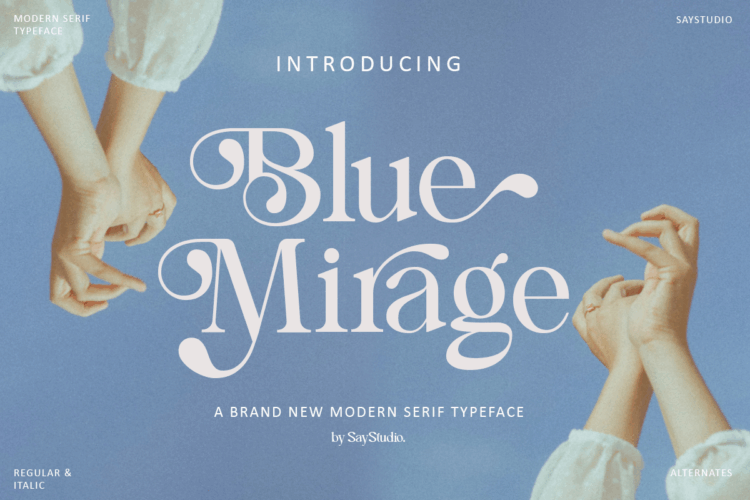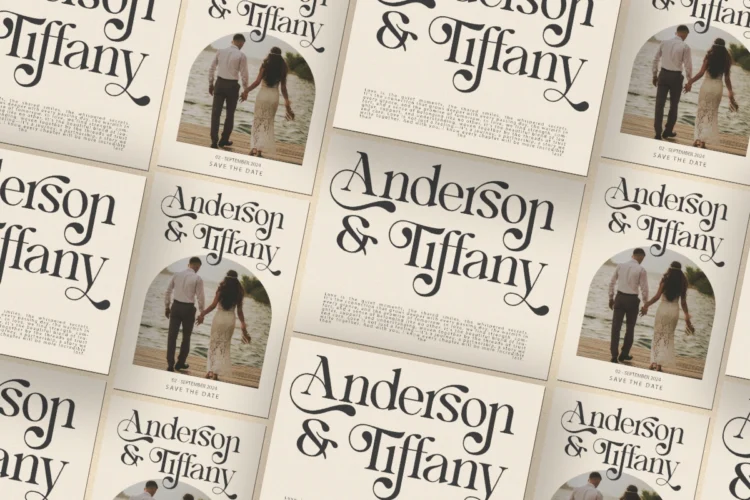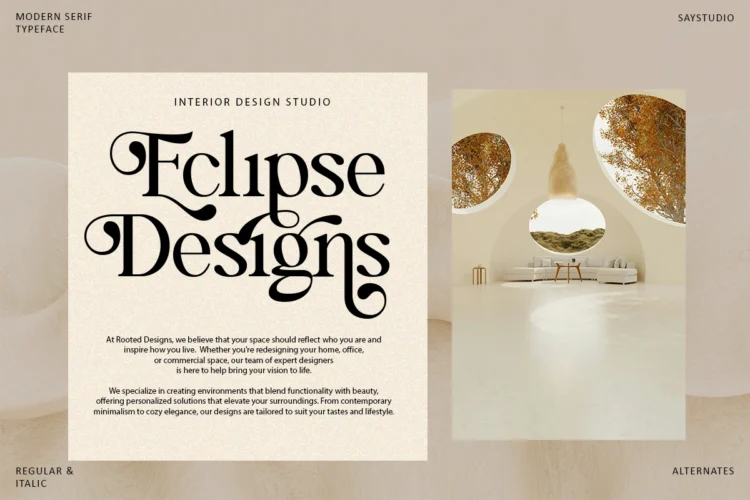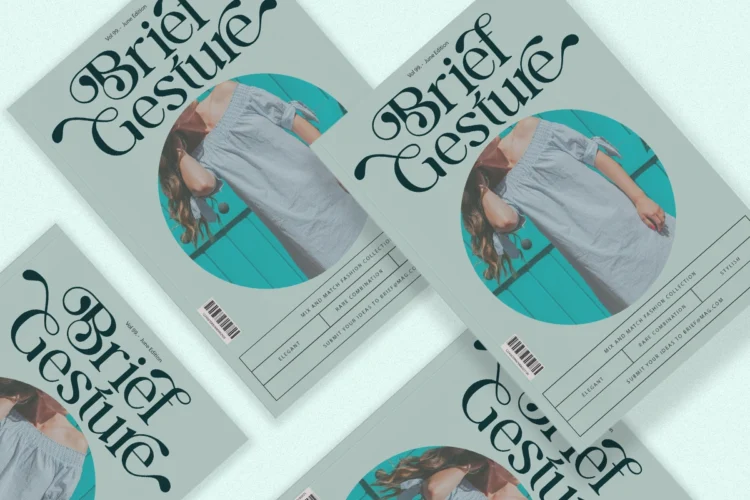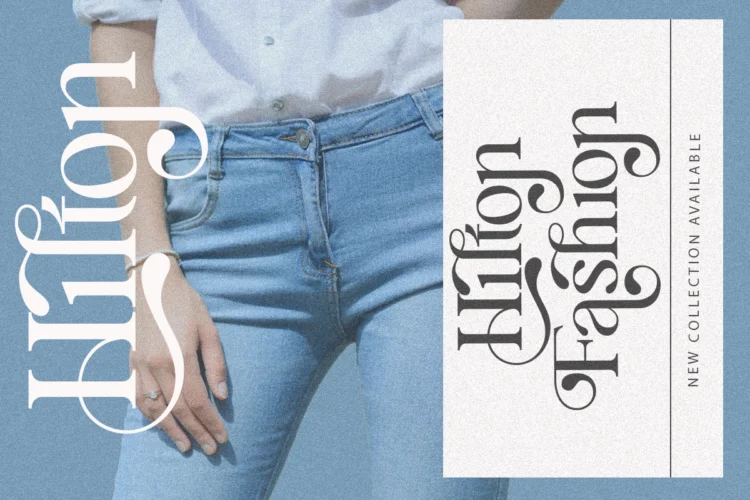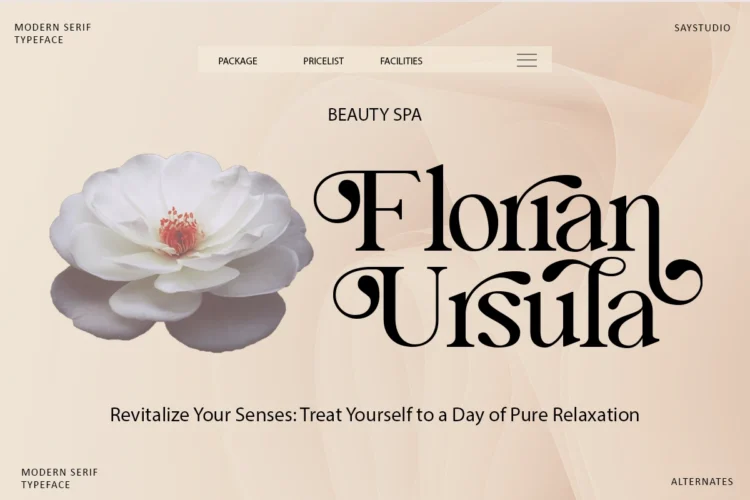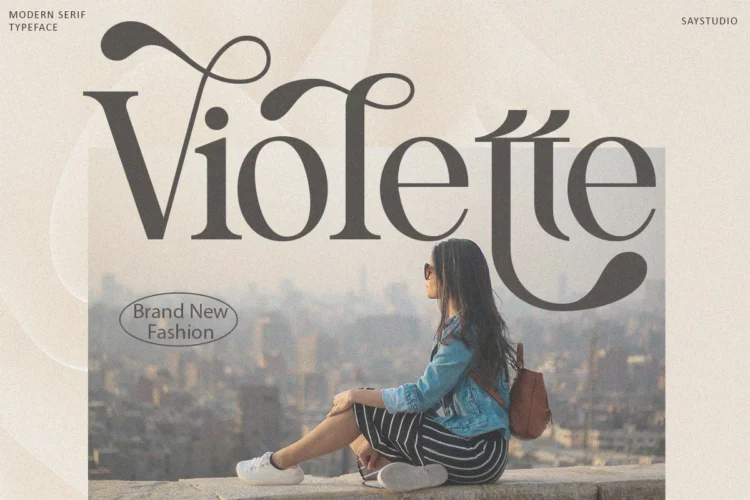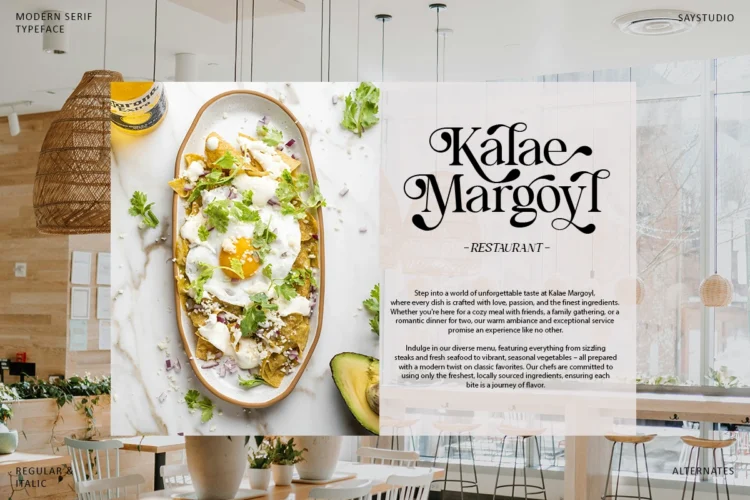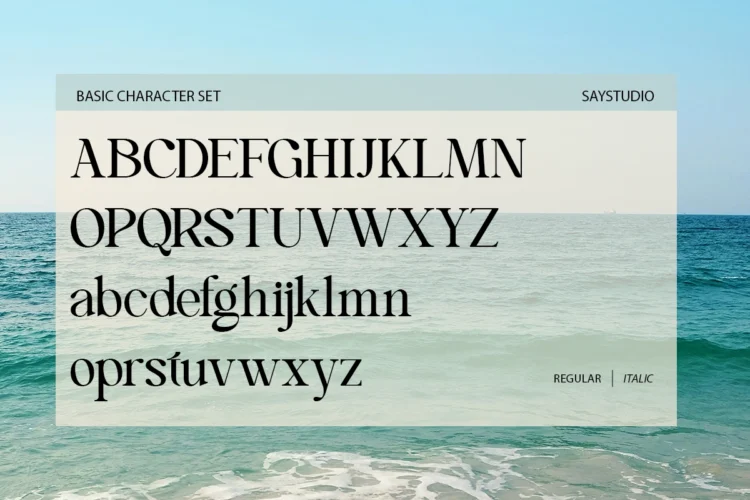
Blue Mirage
Blue Mirage is a modern serif with high contrast and elegant curves, more than just a pretty face. Blue Mirage With over 60 unique and modern alternate letters, and incredibly versatile, allowing you to create truly unique and captivating typefaces perfect for any project that demands a touch of sophistication and lots of personality.
• Unique Alternates
• Multilingual